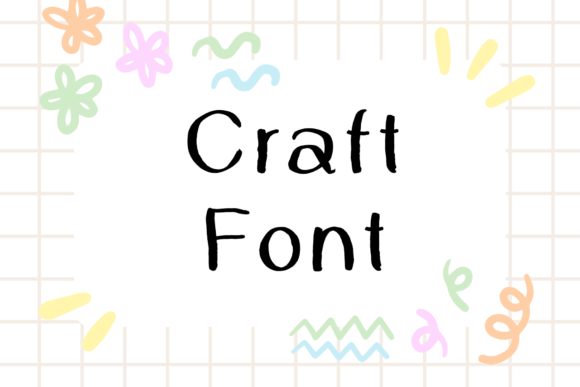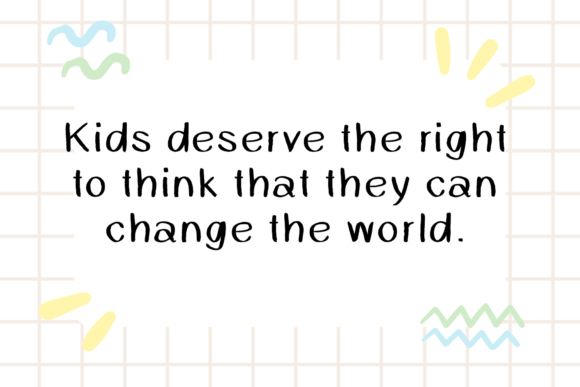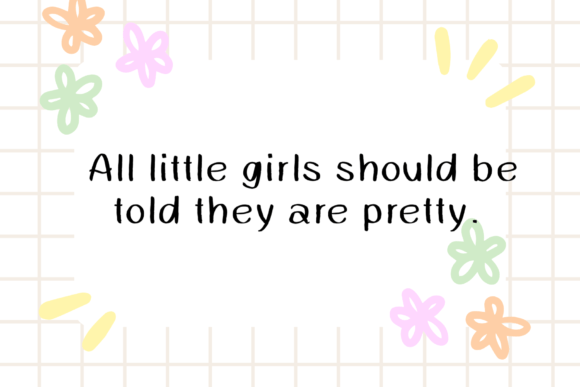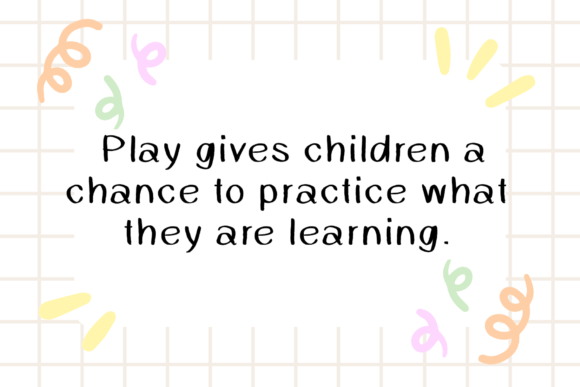
Craft Font
About Craft Font
**Craft**: Where Playfulness Meets Creativity
**Craft** is not just a font; it’s a world of imagination waiting to be explored. With its playful handwritten style, **Craft** brings a sense of joy and whimsy to every project it graces. Perfectly tailored for kids’ projects and designs that require a touch of fun, this font is a delightful addition to your creative arsenal.
Imagine a child’s laughter echoing through the pages of a storybook, or the vibrant colors of a kindergarten classroom coming to life. **Craft** captures the essence of these moments, making it an ideal choice for educational materials, children’s books, playful websites, and any project aimed at young audiences.
One of **Craft’s** standout features is its ability to evoke a sense of wonder and excitement. Its playful strokes and lively characters create a cheerful atmosphere, making learning experiences engaging and enjoyable. For educators, **Craft** transforms lessons into adventures, making educational content visually appealing and captivating for young learners.
In the realm of design, **Craft** lends itself seamlessly to a myriad of creative projects. Its whimsical charm makes it an excellent choice for crafting logos, labels, and packaging for kids’ products. Whether you’re designing toys, stationery, or children’s apparel, **Craft** infuses your creations with a youthful spirit, making them irresistible to both children and parents alike.
For digital media, **Craft** adds a touch of playfulness to websites, apps, and social media content targeting younger audiences. Its friendly and approachable characters make navigation intuitive and enjoyable, enhancing the user experience for children and parents navigating digital platforms together.
**Craft** is not just a font; it’s an invitation to play, create, and explore. Its delightful presence turns ordinary projects into extraordinary adventures, where imagination knows no bounds. Add **Craft** to your fonts library, and watch as it transforms your designs into colorful, captivating works of art.
Embrace the whimsy of **Craft** and let it spark creativity in the hearts of both young and old. With every stroke, it tells a story—a story of joy, curiosity, and boundless imagination. Let **Craft** be the playful companion that brings your creative visions to life, one cheerful letter at a time.